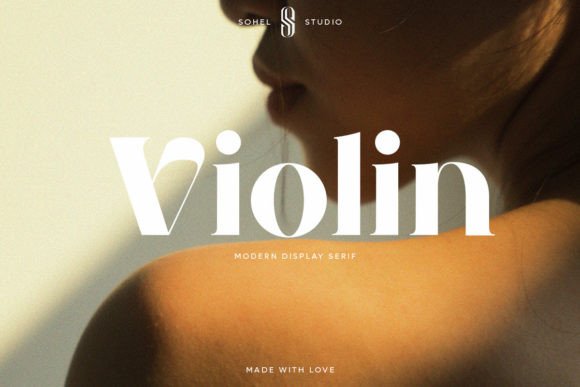
**Indulge in the Enchanting Melody of Violin Font: Your Symphony to Success**
Immerse yourself in the captivating world of Violin Font, a symphony of serifs that will elevate your creations to harmonious heights. Born from the artistry of Sohel Studio, this modern and stylish font dances upon the page, leaving behind an aura of elegance and sophistication.
Whether you're composing digital masterpieces, crafting eye-catching logos, or printing stunning invitations, Violin Font effortlessly complements any project. Its graceful strokes and refined curves ignite a sense of wonder, beckoning your audience into a realm of enchantment.
With Violin Font as your virtuoso companion, every written word transforms into a visual masterpiece. Its meticulously crafted letters print with clarity and precision, ensuring that your message resonates with an unmistakable charm.